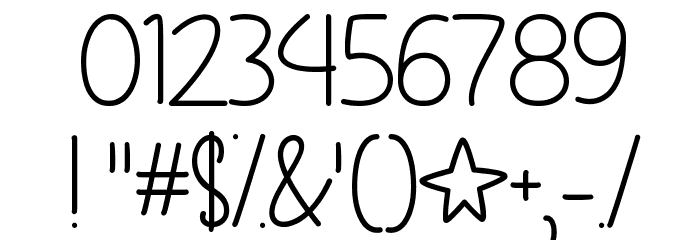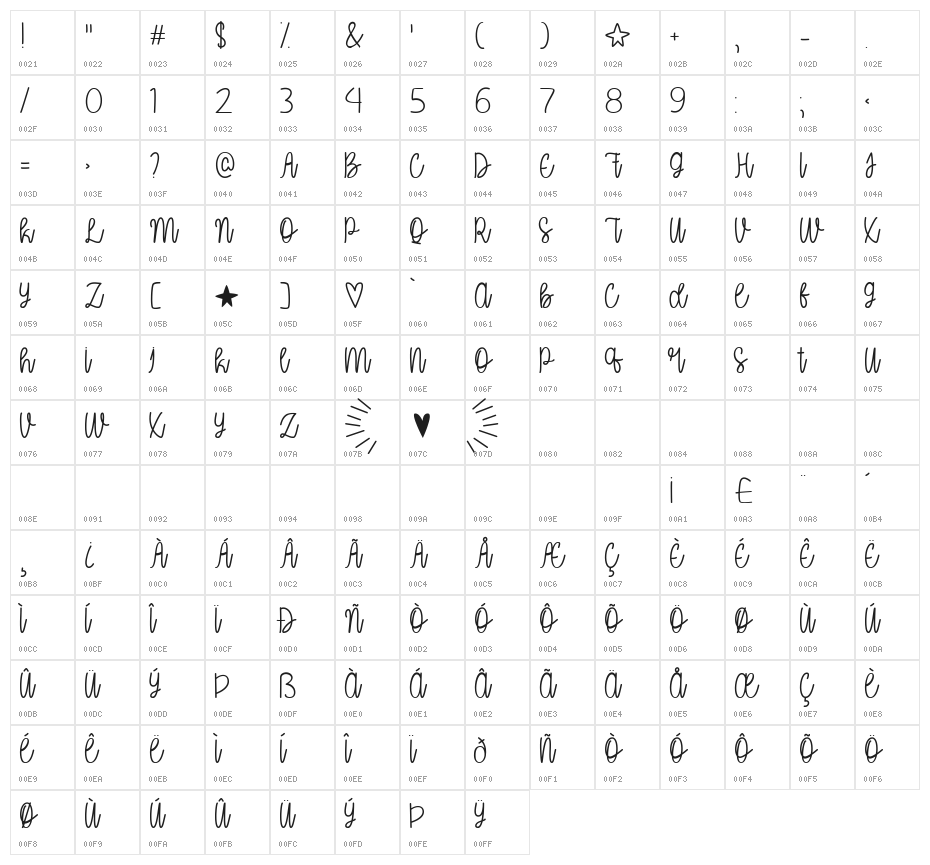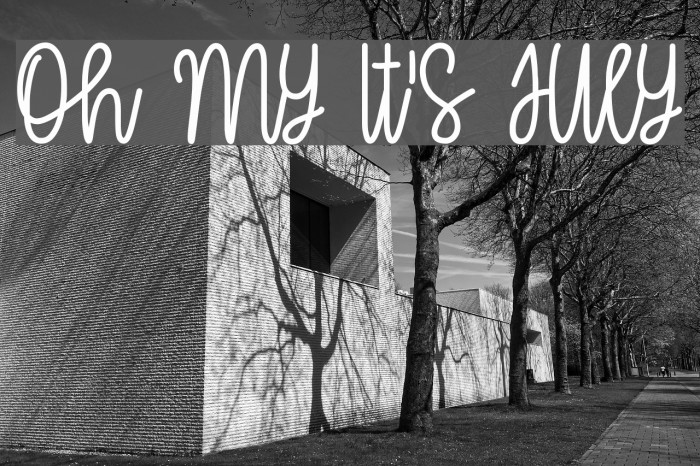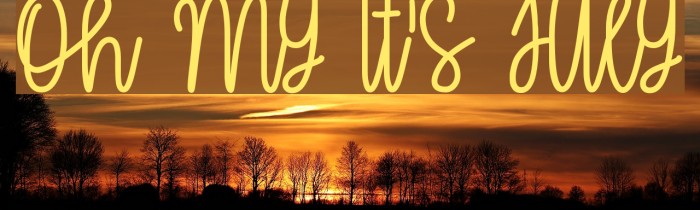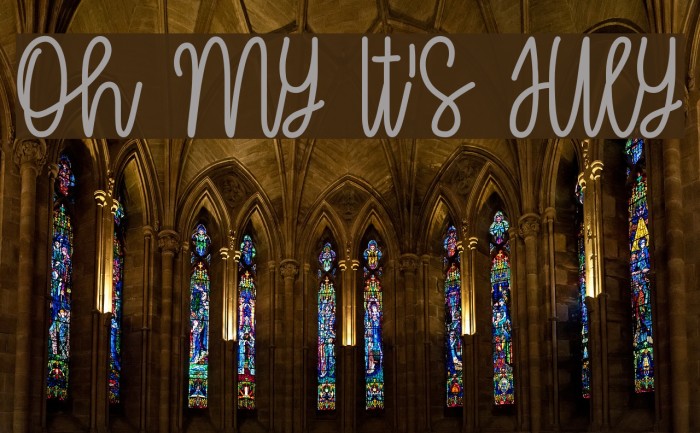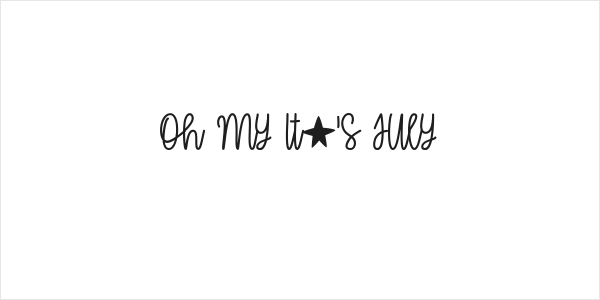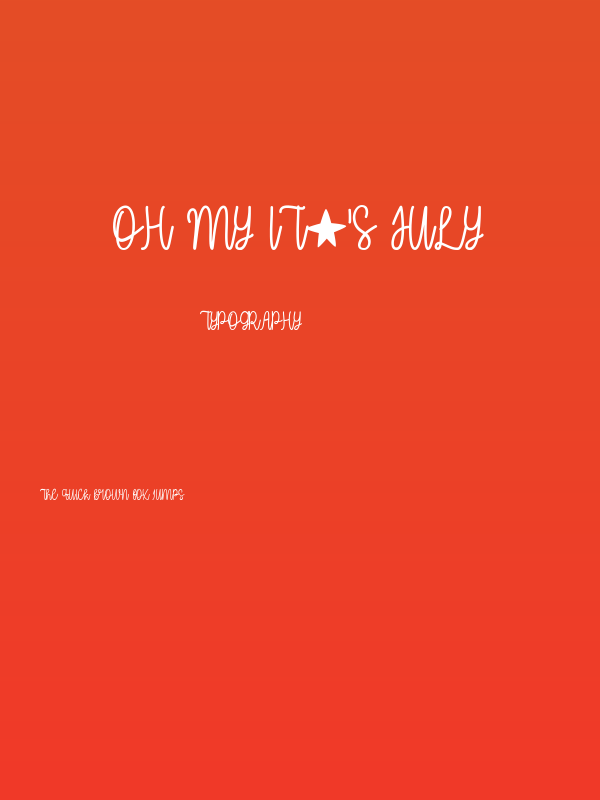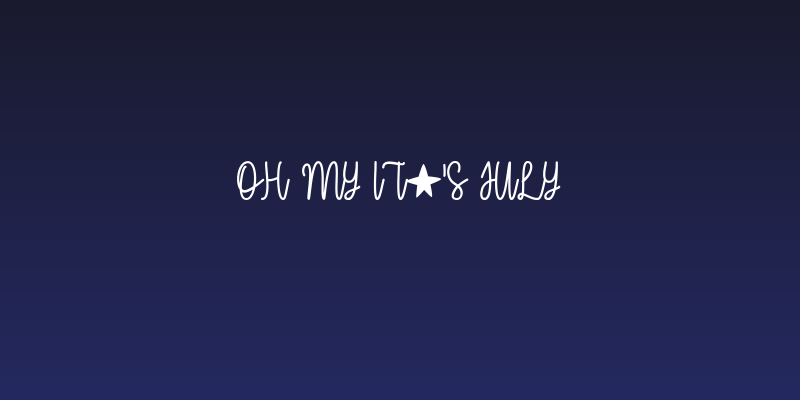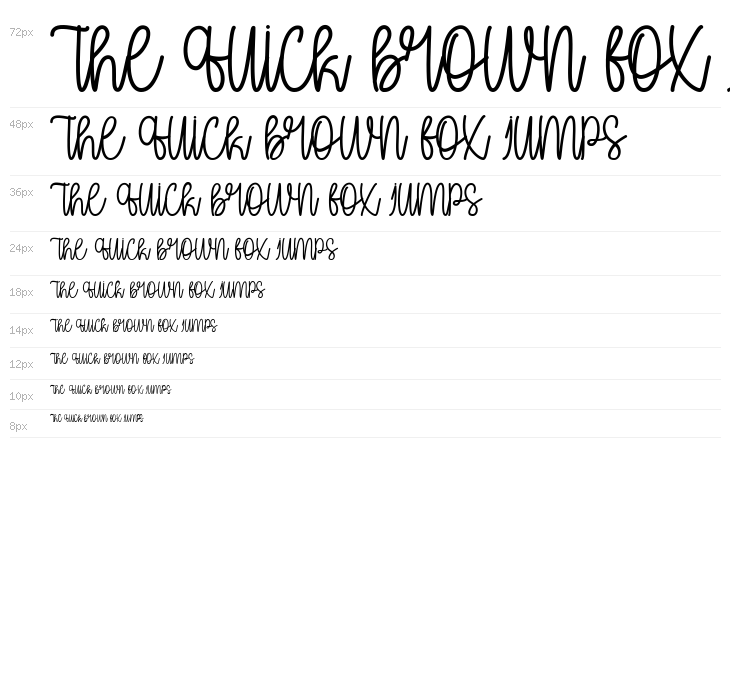
Oh My It's July Font
Oh My It's July Description
This font features a playful and casual handwritten style, characterized by its smooth, flowing curves and consistent stroke width. The letters are interconnected, giving it a cohesive and continuous appearance. The uppercase and lowercase letters maintain a uniform height, enhancing readability while retaining a whimsical charm. Numbers and special characters are designed with the same fluidity, ensuring a harmonious look across all elements. Its informal and friendly nature makes it suitable for projects that require a personal touch.
| Use Case | Logos, Invitations, Social Media |
| Proposed Projects | Ideal for greeting cards, invitations, personal branding, and social media graphics. |